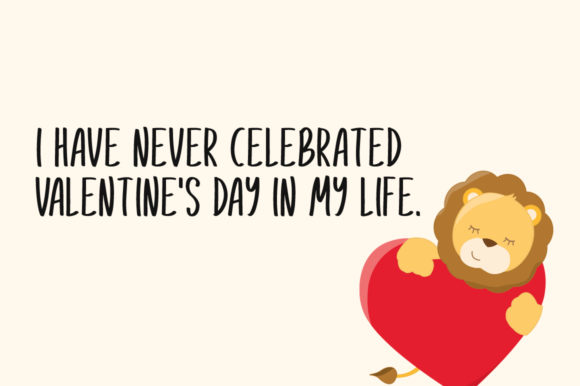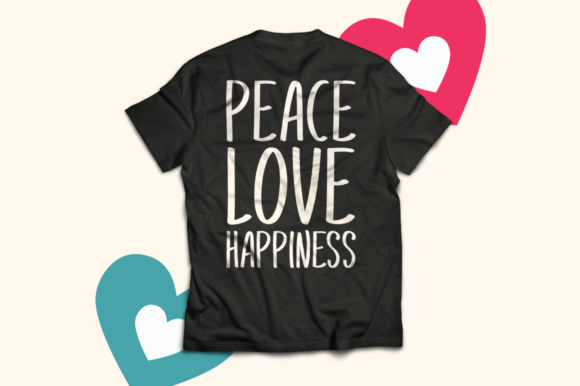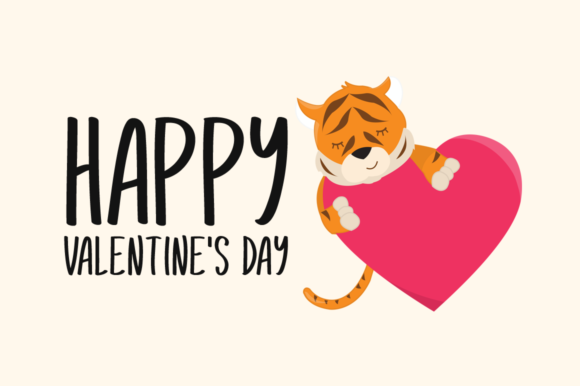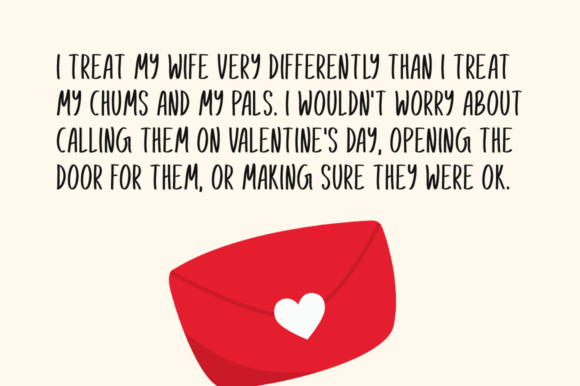
Introduction to Love Radiate Font Font
Fonts play a crucial role in design, and the Love Radiate Font font is a typeface that brings both character and versatility to any project. Whether you’re working on a branding project, a website, or a print design, the Love Radiate Font font offers a unique style that can elevate your work.
Love Radiate a joyful and casual handwritten font.
Key Features of Love Radiate Font Font
Why Choose Love Radiate Font Font?
The Love Radiate Font font is more than just a typeface – it’s a design tool that helps you communicate your message with style and clarity. Its unique character set and versatile design make it suitable for a wide range of applications, from elegant invitations to bold headlines.
With its carefully crafted letterforms and balanced proportions, the Love Radiate Font font ensures readability and visual appeal across all mediums.
What makes Love Radiate Font font special?
The Love Radiate Font font stands out with its unique design, exceptional readability, and versatility across various design applications.